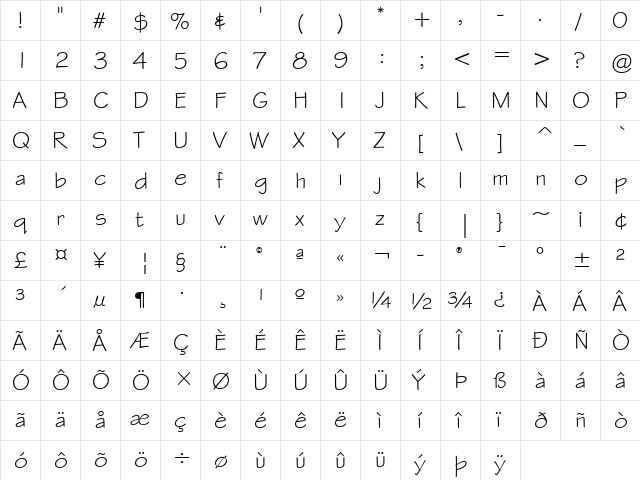
Stylus ITC Regular Font Preview
Stylus ITC Regular Regular
Design Context for Stylus ITC Regular Typeface
Stylus ITC Regular is a composed and adaptable typeface that performs quietly and consistently across a wide range of design contexts.